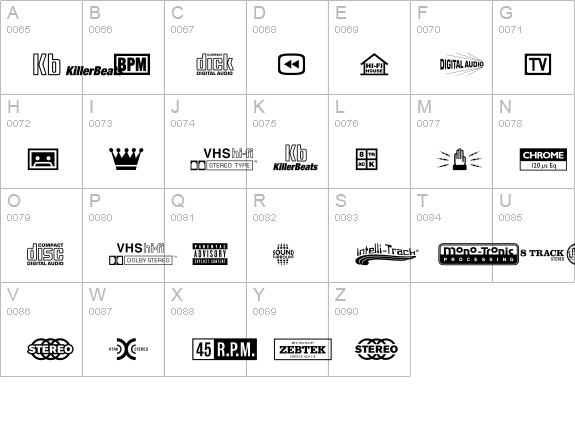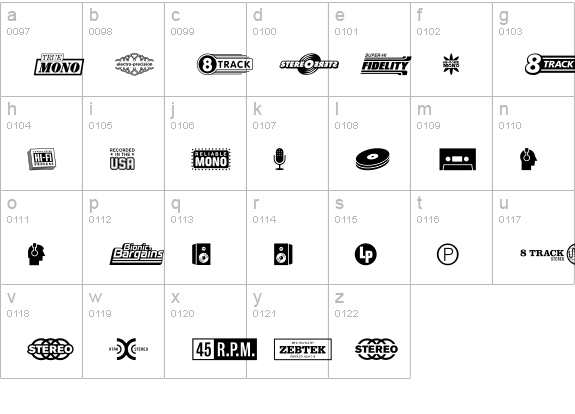
RPM Font Details
Introducing RPM font - a modern and stylish typeface that is perfect for a wide range of design projects. With its sleek lines and contemporary feel, RPM font is sure to make a statement in any design. This versatile font is free to download at FontsMarket.com, making it accessible to designers and creatives looking to add a touch of sophistication to their work. Whether you're designing a logo, creating a website, or working on a print project, RPM font is a fantastic choice that will elevate your design to the next level. Download this stunning font today and see the difference it can make in your projects!